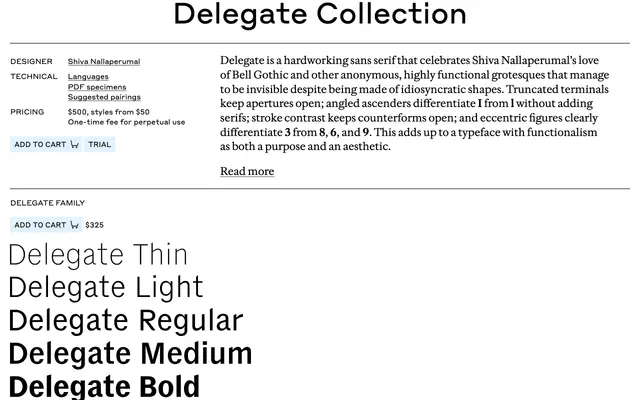
Delegate Collection
Commercial Type · Shiva Nallaperumal
A hardworking grotesque by Shiva Nallaperumal in the spirit of Bell Gothic, with truncated terminals and angled ascenders for clarity at small sizes.
A grotesque sans by Shiva Nallaperumal that draws on Bell Gothic and other anonymous, highly functional grotesques. Truncated terminals keep apertures open, angled ascenders differentiate I from l without serifs, stroke contrast protects counterforms and idiosyncratic figures clearly separate 3 from 8, 6 and 9. The design treats functionalism as both purpose and aesthetic, making it well suited to directories, ui, wayfinding, captions and editorial systems that need to work hard at small sizes.
Commercial Type describe Delegate as a hardworking sans serif celebrating Bell Gothic and anonymous functional grotesques, with truncated terminals, angled ascenders, stroke contrast and eccentric figures that solve legibility problems while keeping a distinct character.